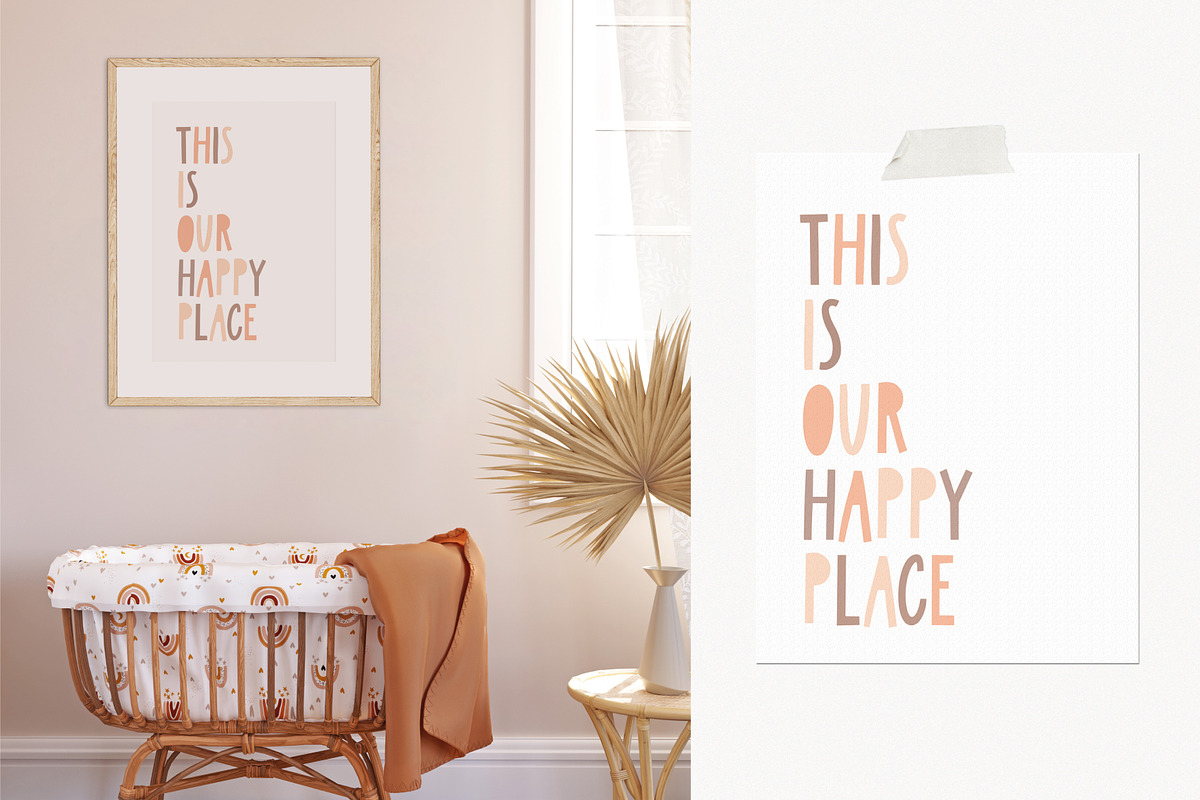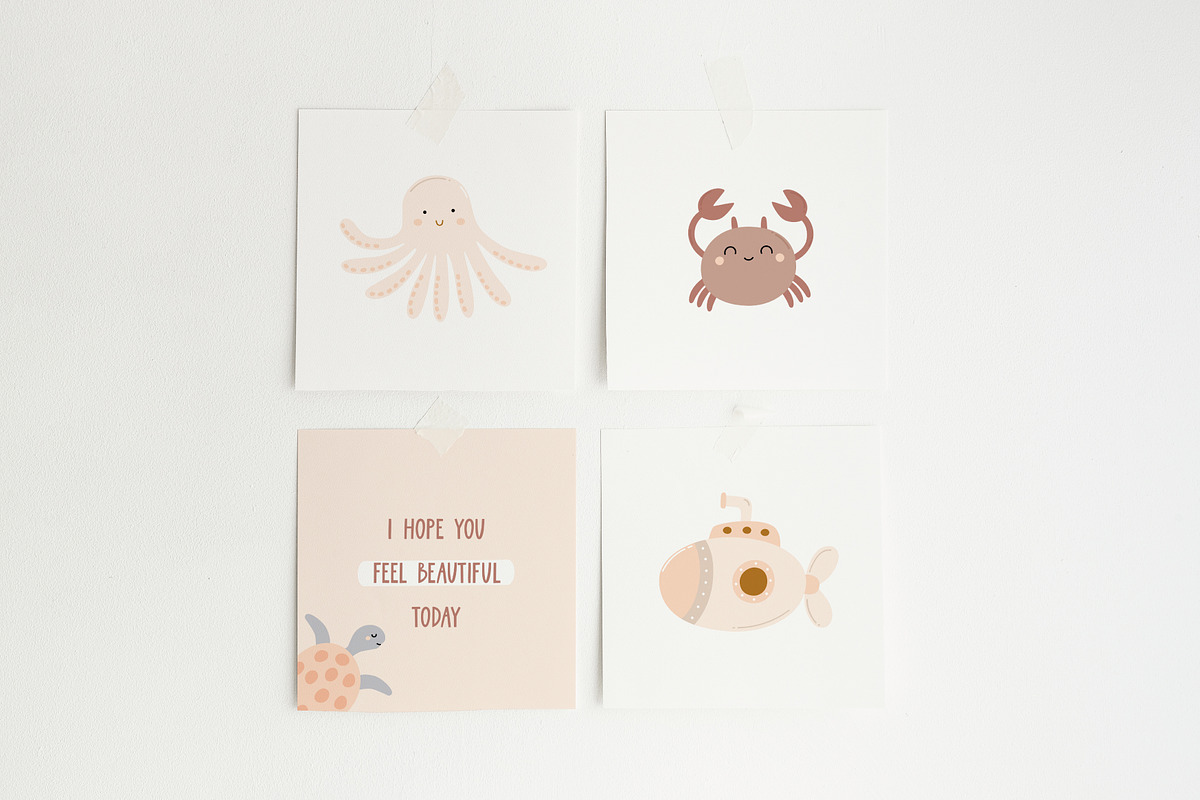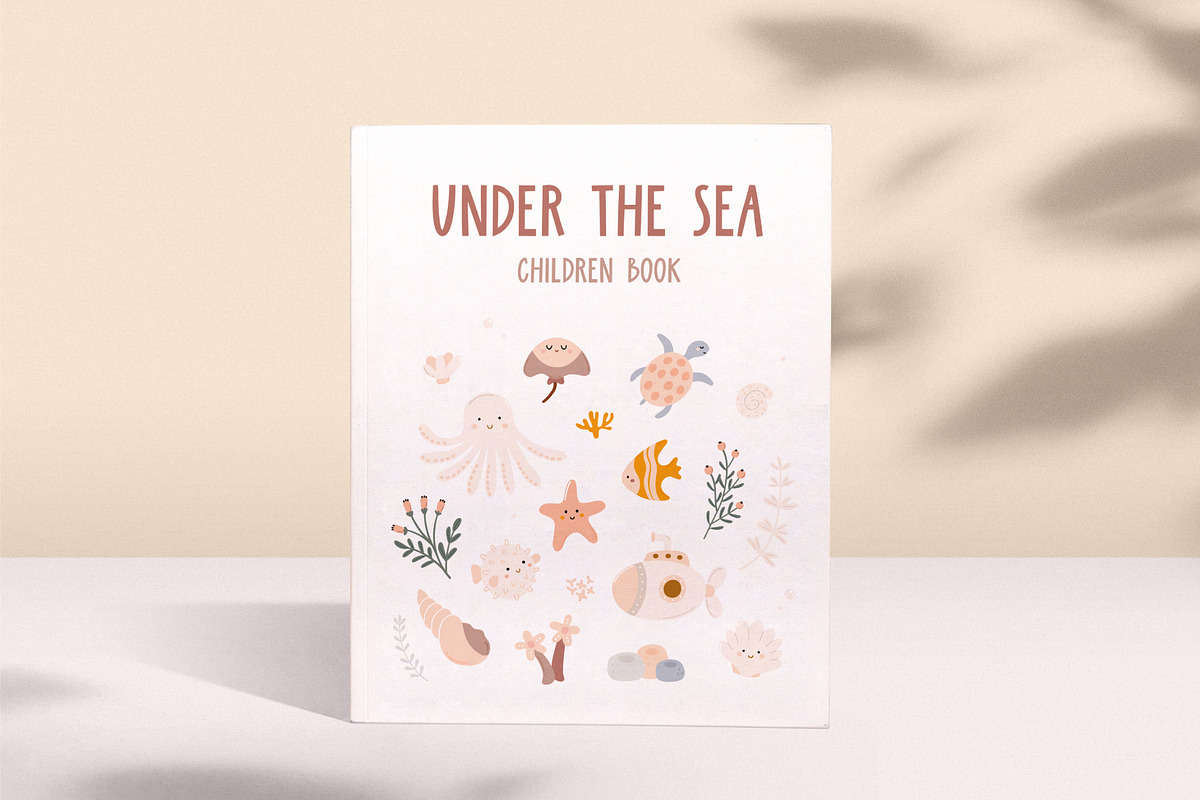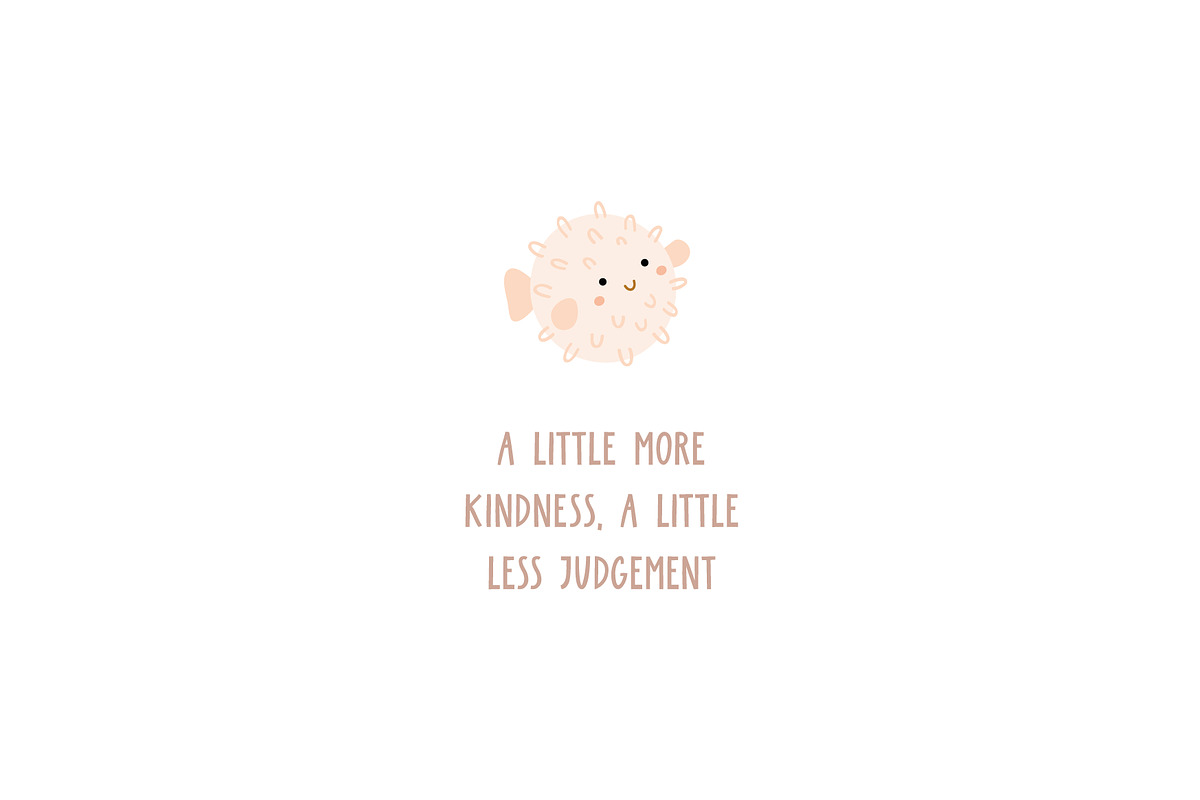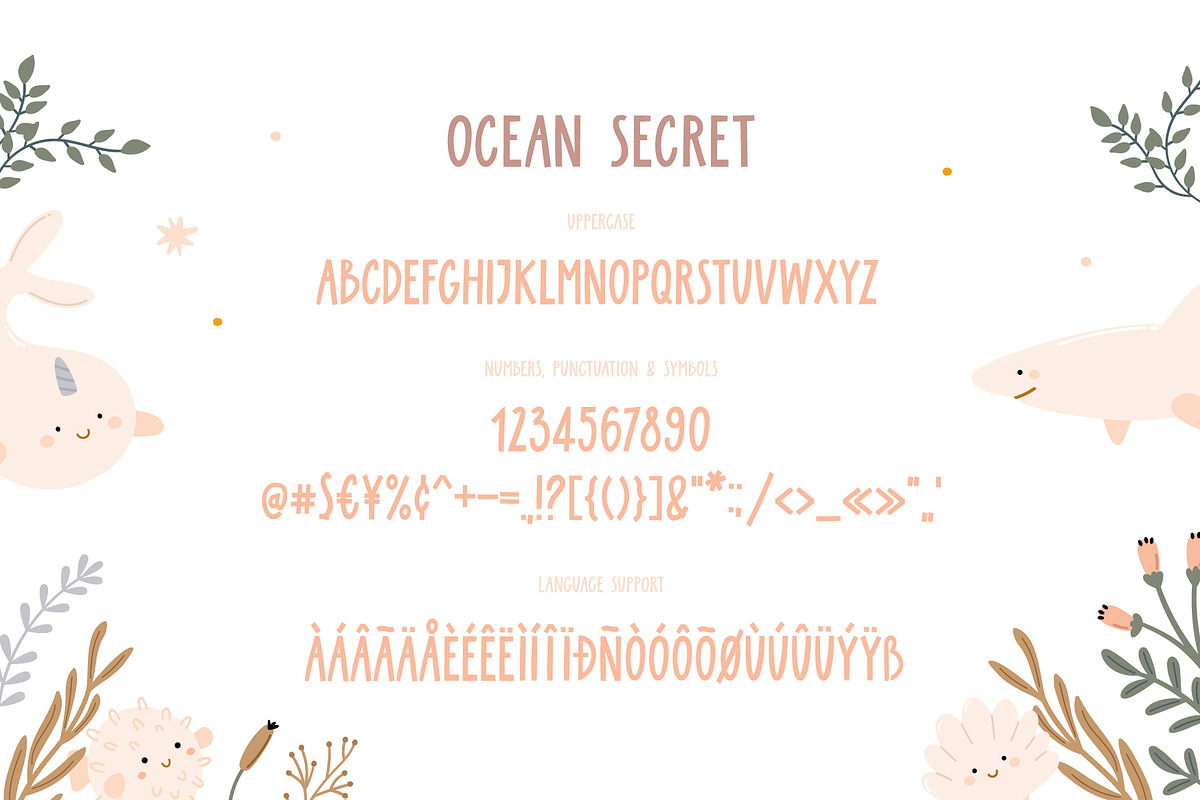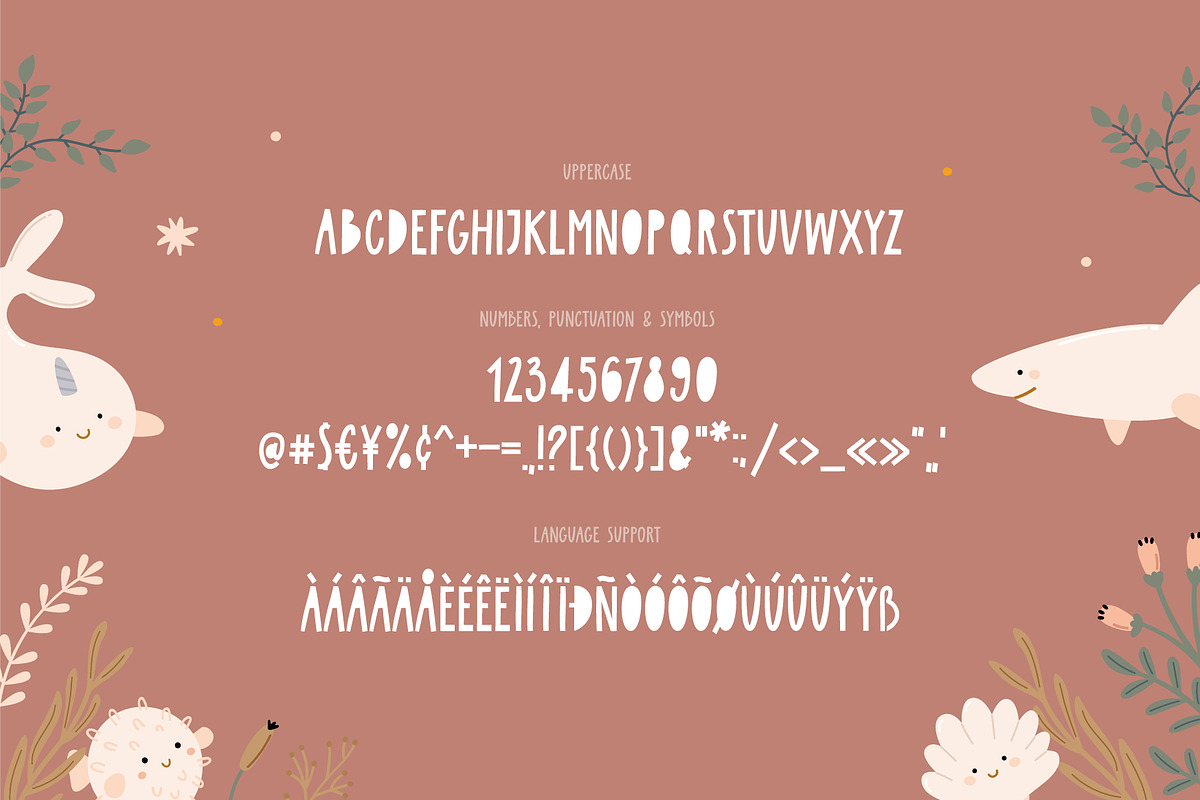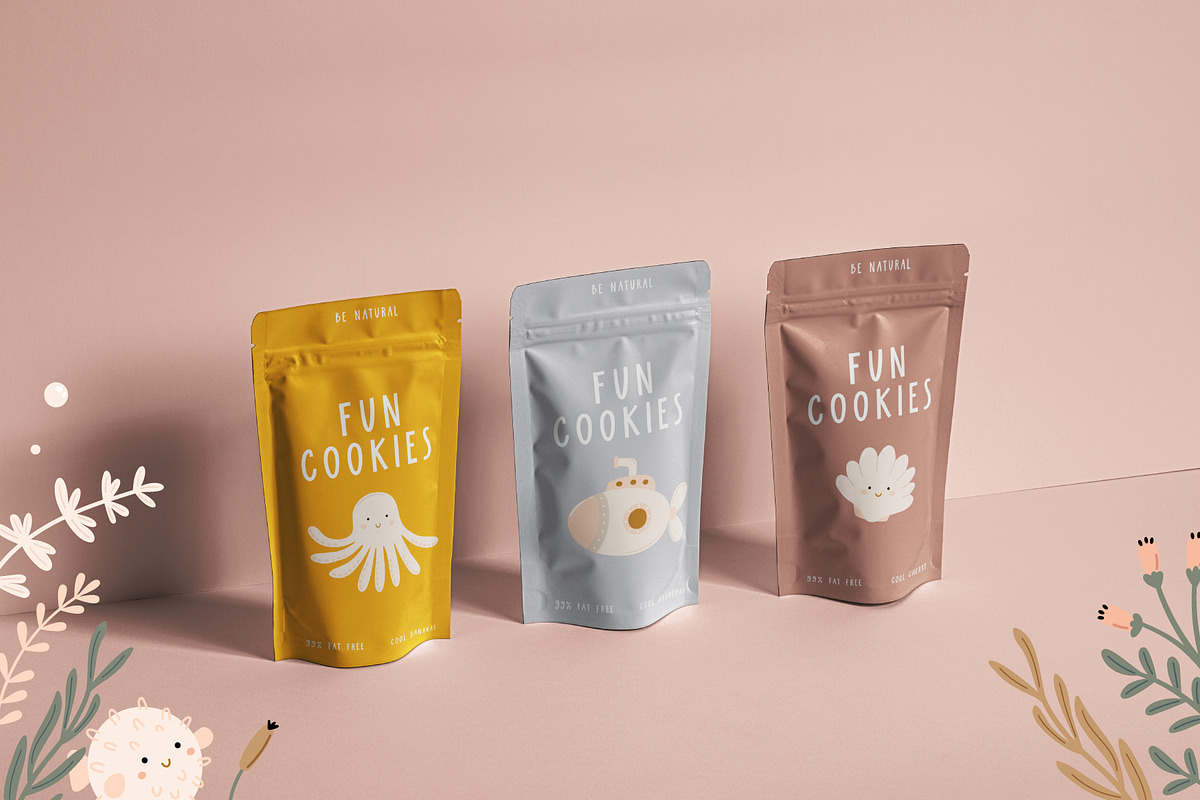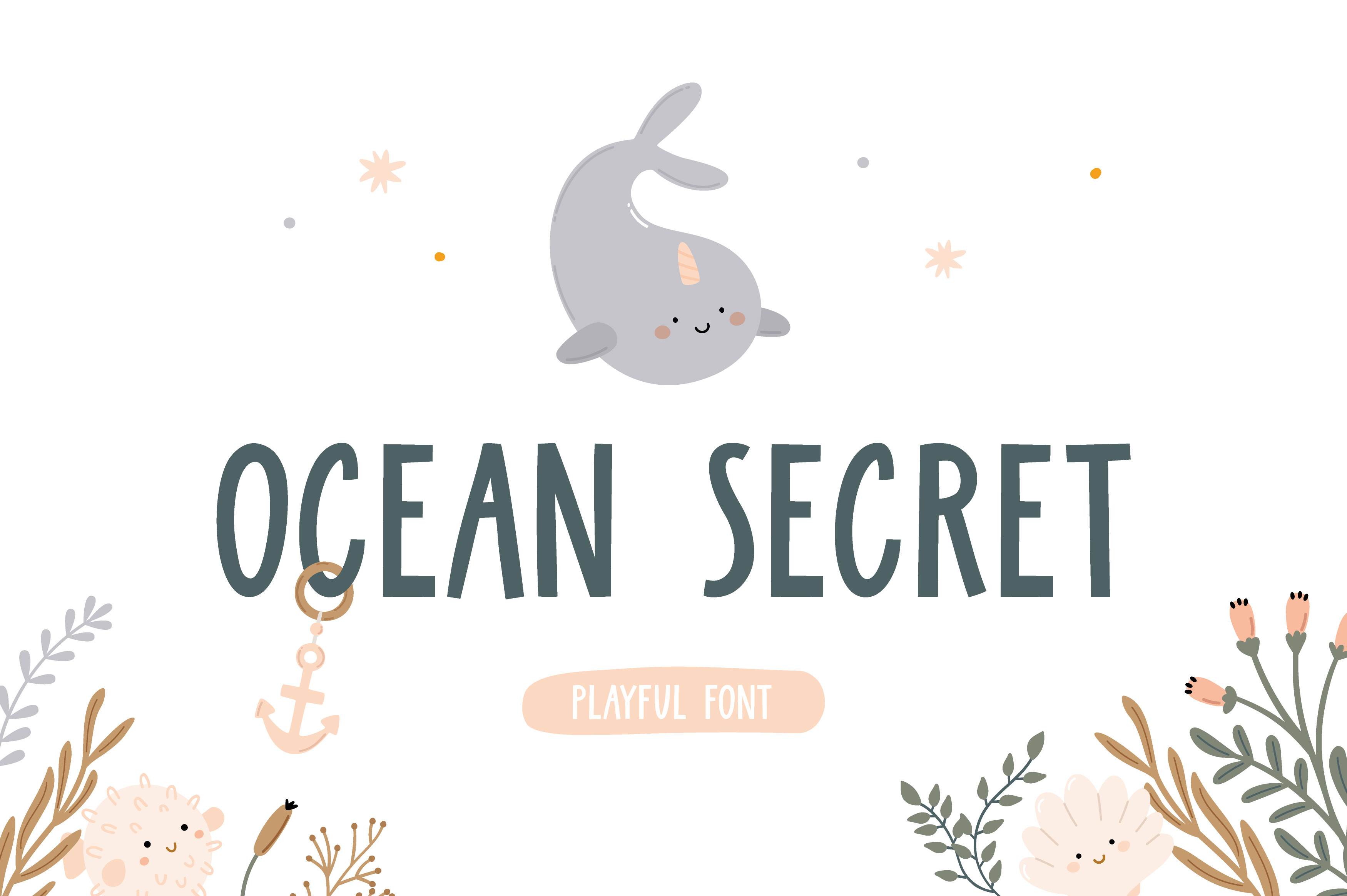
Ocean Secret | Playful font
Ocean secret is perfect for headings, quotes, book cover, posters, greeting cards, product packaging, journals, baby clothing and more.